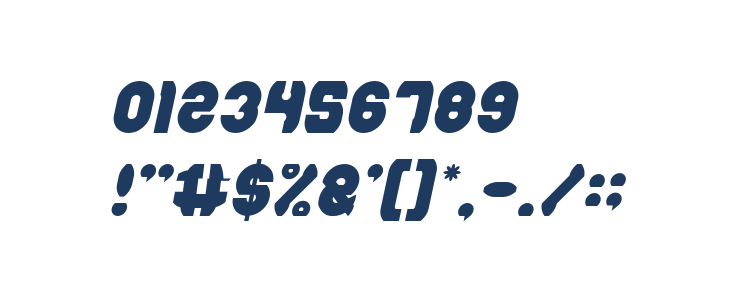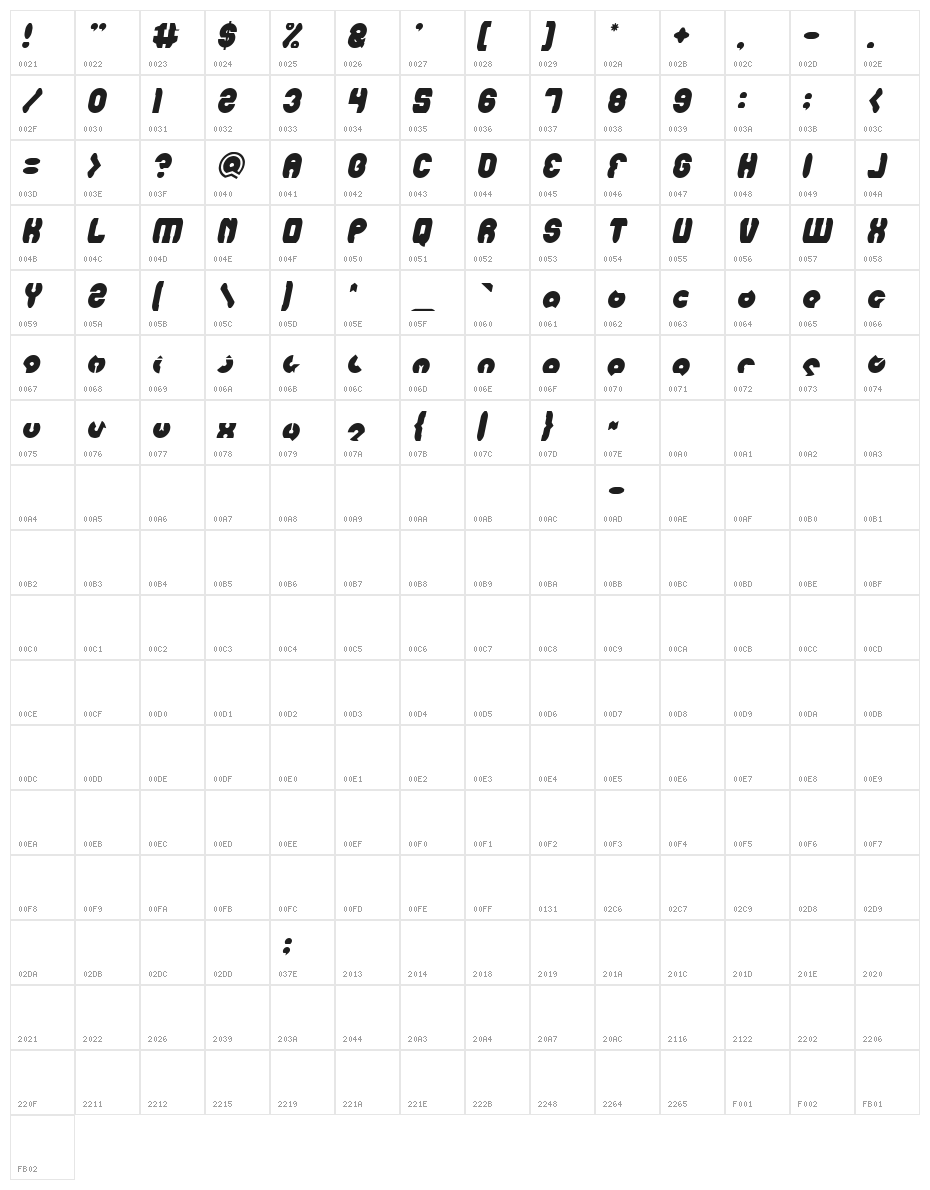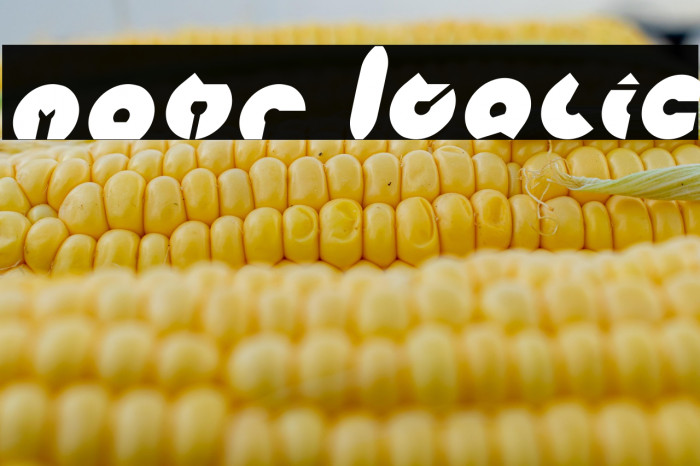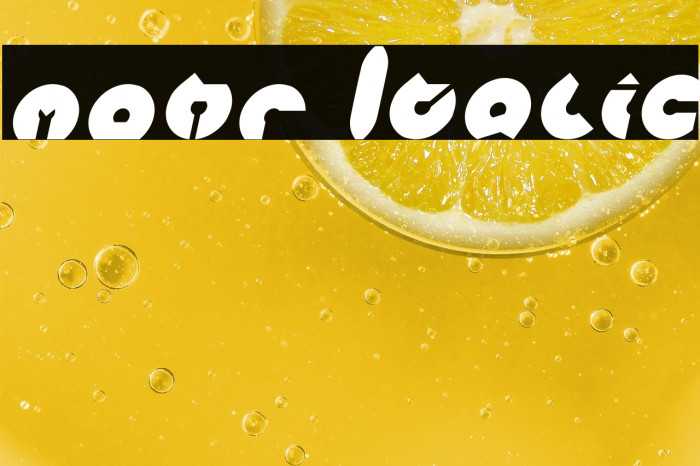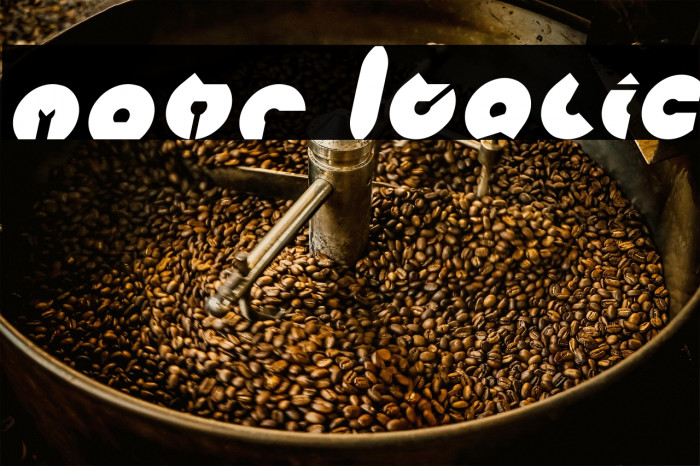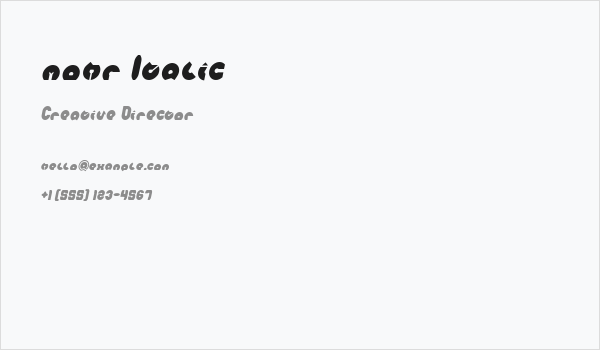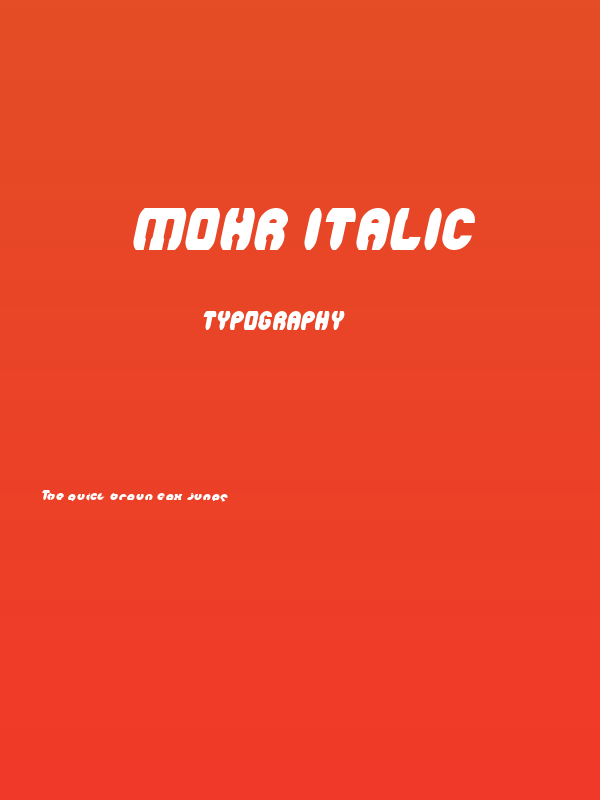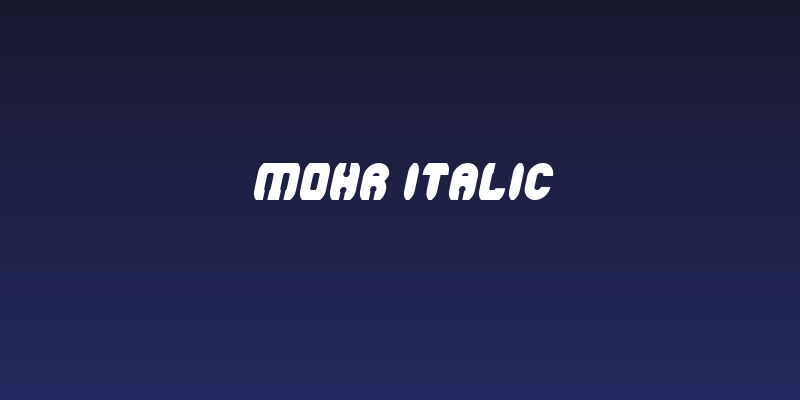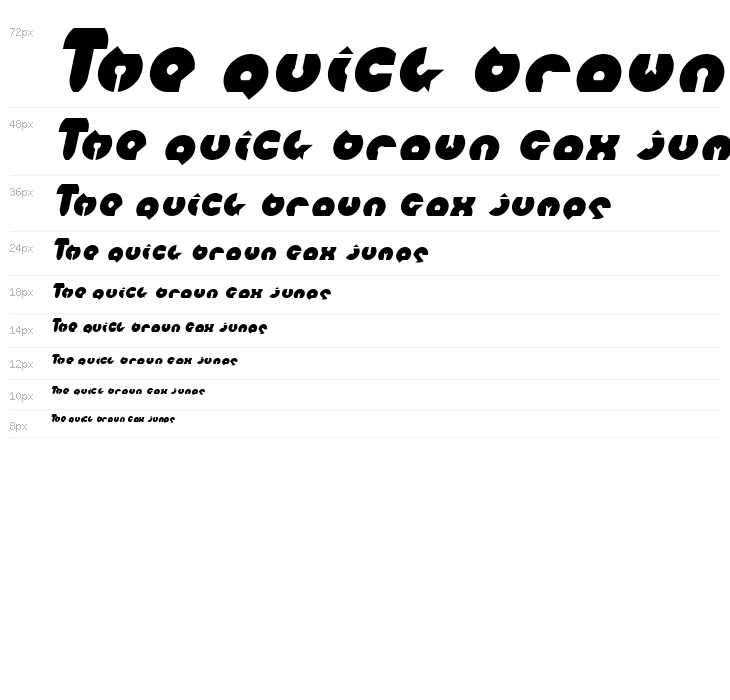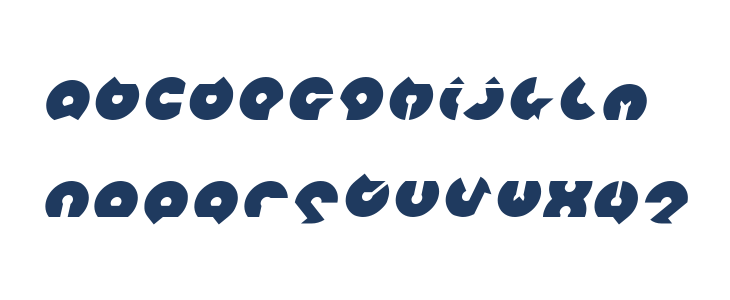
mohr Italic Font
mohr Italic Description
This font features a bold and dynamic design with a strong italic slant, giving it a sense of movement and energy. The characters are thick and rounded, with a consistent stroke width that adds to its bold appearance. The uppercase and lowercase letters maintain a uniform style, while the numbers and special characters are designed to match the overall aesthetic. The font's unique style makes it stand out, with a modern and slightly futuristic feel. Its boldness and distinctiveness make it suitable for attention-grabbing designs.
| Proposed Projects | Ideal for posters, logos, branding, and any design that requires a strong visual impact. |